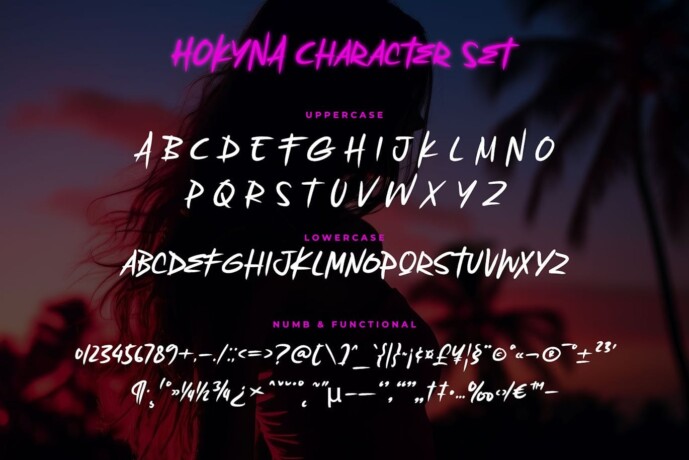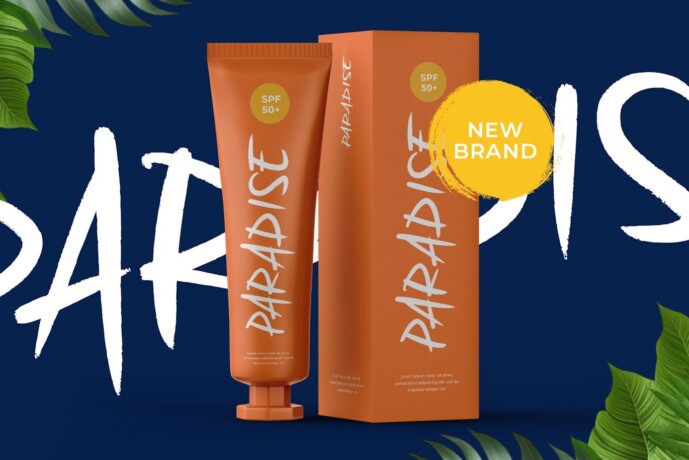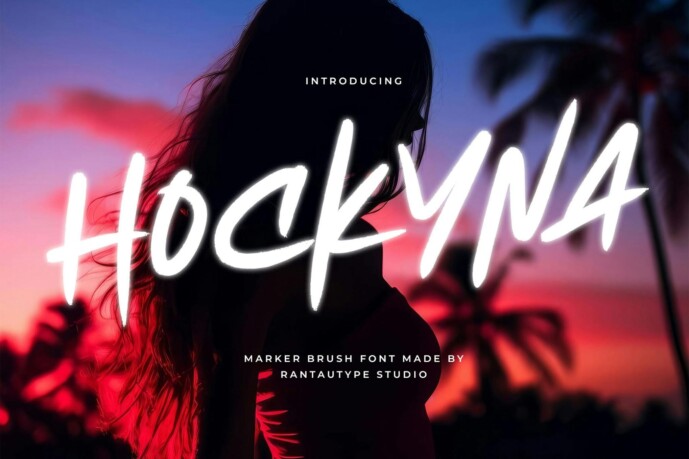
Hockyna Font
Hockyna Font is a marker font with intensity and energy. Hockyna brings a clean natural marker, which helps to create a stunning project design.
Hockyna is a perfect choice for any creative, chic and lifestyle design activities, such as logos, advertisements, watermarks on photographs, stationery, branding projects, displays and magazines, invitations, corporate branding, product design, labels, commercial projects and any other projects with a handwritten taste.